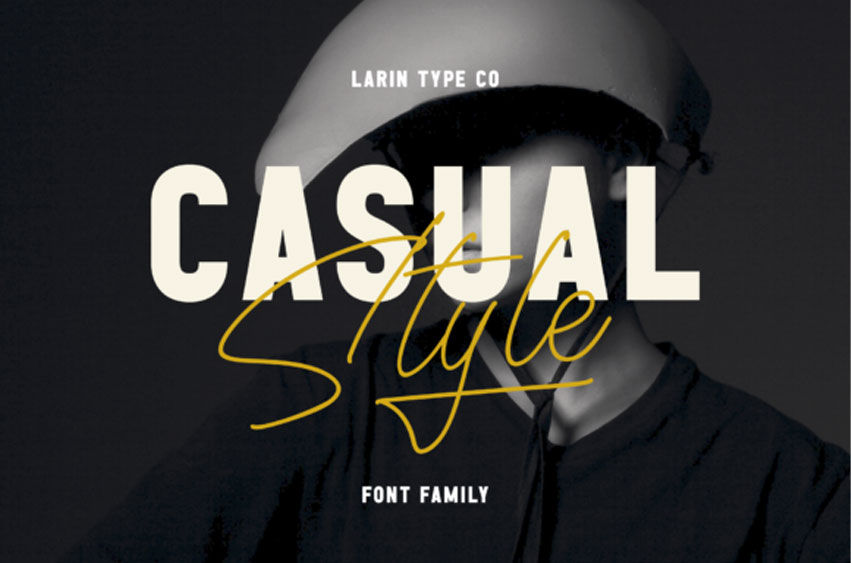
Casual Style Font
Casual Style Font is a lovely duo font (display and script). This font is PUA encoded which means you can access all of the glyphs and swashes with ease!
Fall in love with its incredibly versatile style and use it to create spectacular designs.